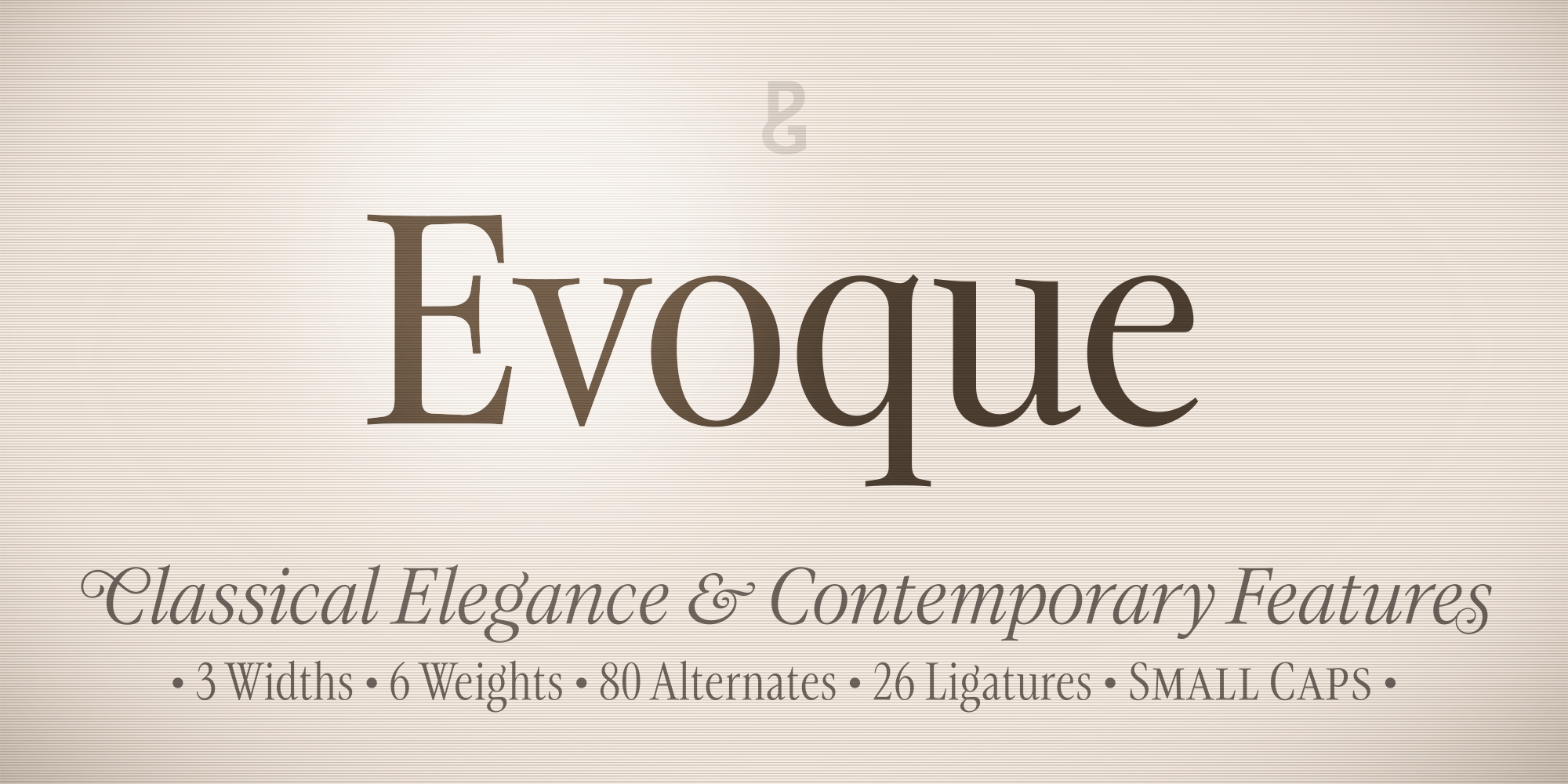
Evoque Font is perfect for luxury automotive branding, high-end fashion campaigns, premium lifestyle magazines, sophisticated cosmetics packaging, elegant jewelry advertisements, upscale real estate marketing, exclusive club memberships, and refined hospitality branding.
Evoque Font is exciting because it captures the essence of modern luxury with its sleek, sculptural letterforms that seem to flow like liquid metal across the page. The typeface embodies contemporary sophistication and aspirational lifestyle, creating an immediate sense of exclusivity and refined taste that resonates with discerning audiences who appreciate cutting-edge design.
Evoque Font family includes Ultra Light, Light, Regular, Medium, Bold, and Black weights, complemented by elegant italic variants and stylistic alternates, offering designers luxurious typographic tools for creating premium visual experiences that command attention and convey prestige.
Whether you're crafting materials for a luxury car dealership, designing high-end product launches, or developing sophisticated brand identities, Evoque Font Free Download delivers unparalleled elegance and contemporary appeal. This remarkable typeface perfectly marries futuristic design sensibilities with timeless luxury principles, ensuring your communications resonate with affluent consumers who seek innovation without sacrificing refinement. The font's dynamic character variations and fluid proportions make it particularly effective for brands positioning themselves at the forefront of their industries. Luxury brand strategists consistently select Evoque Font when projects require typography that communicates forward-thinking excellence, premium quality, and aspirational lifestyle values, making it essential for high-end automotive marketing, luxury goods packaging, and any application where sophisticated typography can elevate brand perception and create emotional connections with consumers who demand the very best in design innovation.